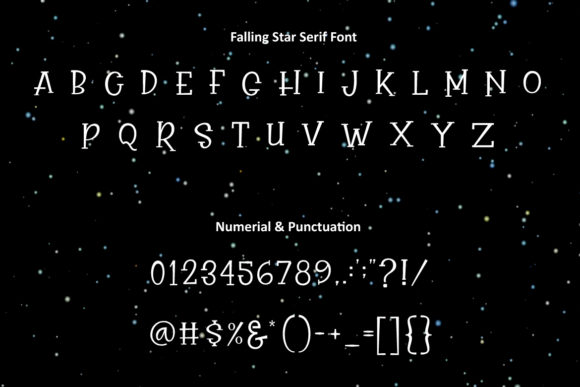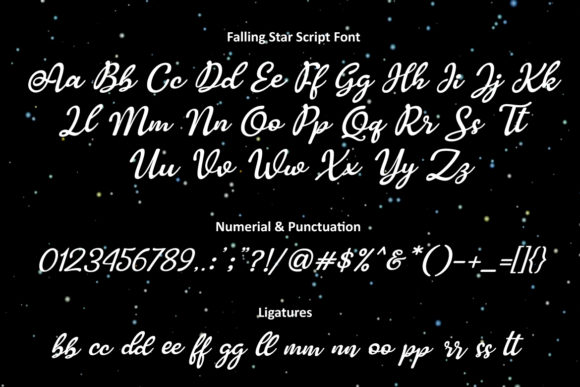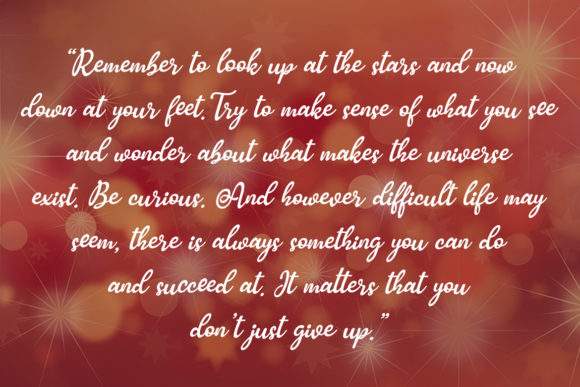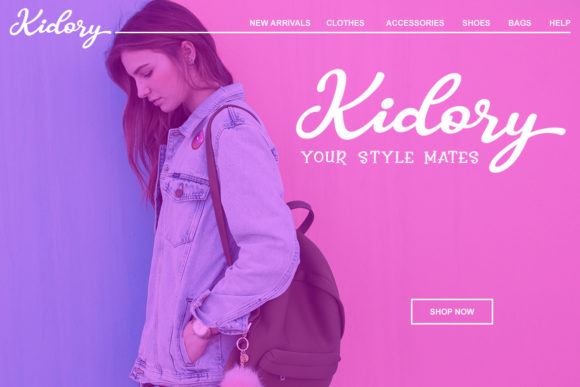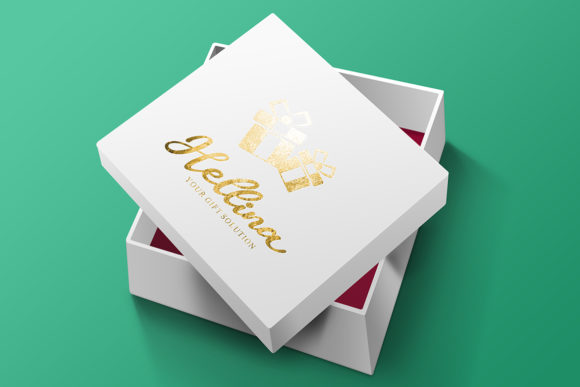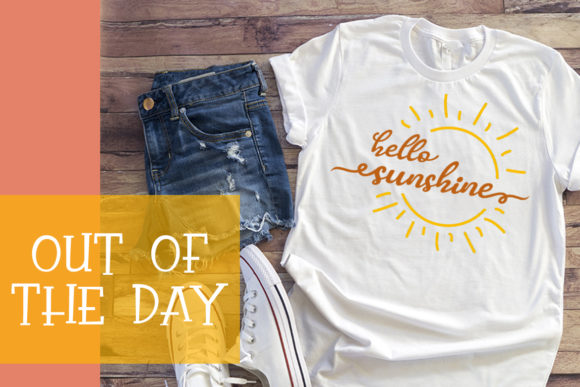
Falling Star Duo Font: Elevate Your Designs with a Branded yet Friendly Feel
In the world of design, fonts play a pivotal role in conveying messages, evoking emotions, and creating a lasting impression. For designers and crafters seeking a font that combines professionalism with a touch of friendliness, the Falling Star Duo Font is an exceptional choice. This comprehensive font duo is meticulously crafted to provide your projects with a branded yet approachable feel, making it an indispensable tool in your design arsenal.
What is Falling Star Duo Font?
The Falling Star Duo Font is a thoughtfully designed font duo that includes two distinct styles. These styles are not only versatile on their own but also seamlessly complement each other, offering a wide range of possibilities for creative expression. Whether you’re working on a branding project, crafting a website, designing marketing materials, or creating handmade crafts, this font duo provides the perfect blend of elegance and approachability.
Key Features of Falling Star Duo Font
- Comprehensive Design: The Falling Star Duo Font comes with two comprehensive styles, ensuring you have ample options for your design needs.
- Branded yet Friendly: The fonts are designed to give your projects a professional look while maintaining a friendly and approachable vibe.
- Versatility: Perfect for a wide array of projects, from digital designs to print materials, and even handmade crafts.
- Easy to Use: The fonts are user-friendly, making it easy for designers of all skill levels to integrate them into their projects.
- High-Quality: Crafted with meticulous attention to detail, ensuring high-quality and clear readability across various applications.
Applications of Falling Star Duo Font
The versatility of the Falling Star Duo Font makes it suitable for numerous applications. Here are some of the ways you can utilize this fantastic font duo:
- Branding: Create a lasting impression with a unique and memorable brand identity.
- Web Design: Enhance your website’s aesthetic appeal and user experience with a clean and elegant font.
- Marketing Materials: From brochures to business cards, give your marketing materials a professional yet friendly look.
- Crafting: Ideal for crafters who want to add a personalized touch to their handmade products, such as labels, tags, and more.
- Social Media Graphics: Stand out on social media with eye-catching graphics that speak to your audience.
Why Choose Falling Star Duo Font?
With numerous fonts available in the market, what sets the Falling Star Duo Font apart? Here are a few reasons why designers and crafters prefer this font:
- Unique Design: The combination of two styles in one font duo offers a unique design perspective that can set your projects apart.
- Time-Saving: Having two comprehensive styles in one duo saves you time and effort in searching for and pairing different fonts.
- Consistency: Ensures consistency across your projects, which is crucial for building a strong brand identity.
The Falling Star Duo Font is a valuable addition to any designer’s or crafter’s toolkit. Its unique combination of a branded yet friendly feel, versatility, and ease of use makes it an ideal choice for a wide range of projects. Whether you’re aiming to create a professional brand identity or add a personal touch to your handmade crafts, this font duo is sure to exceed your expectations. Elevate your designs with the Falling Star Duo Font and discover the difference it can make in your creative endeavors.